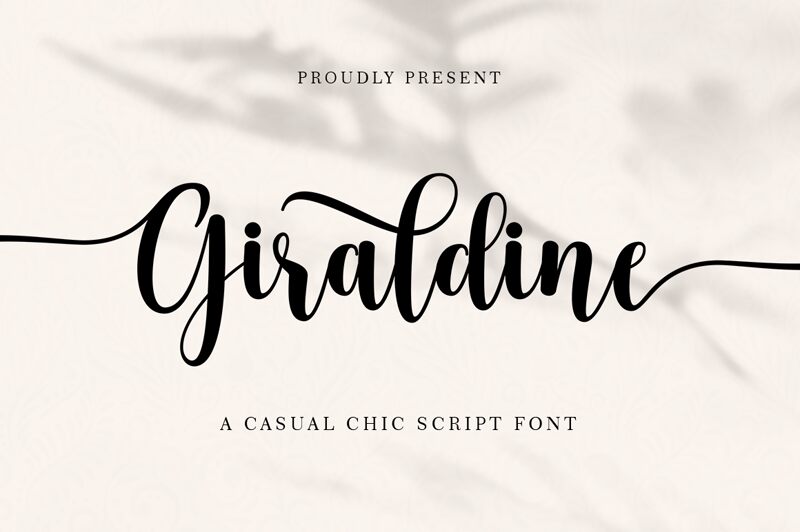
Giraldine is a chic calligraphy font designed by Romi Rahmadi. It has a condensed look which gives it an elegant, sophisticated feel. This font is perfect for projects such as wedding invitations, greeting cards, logo designs and more that require a touch of luxury. Giraldine's delicate curves and stylish lines can also be used to create stunning book covers or posters.